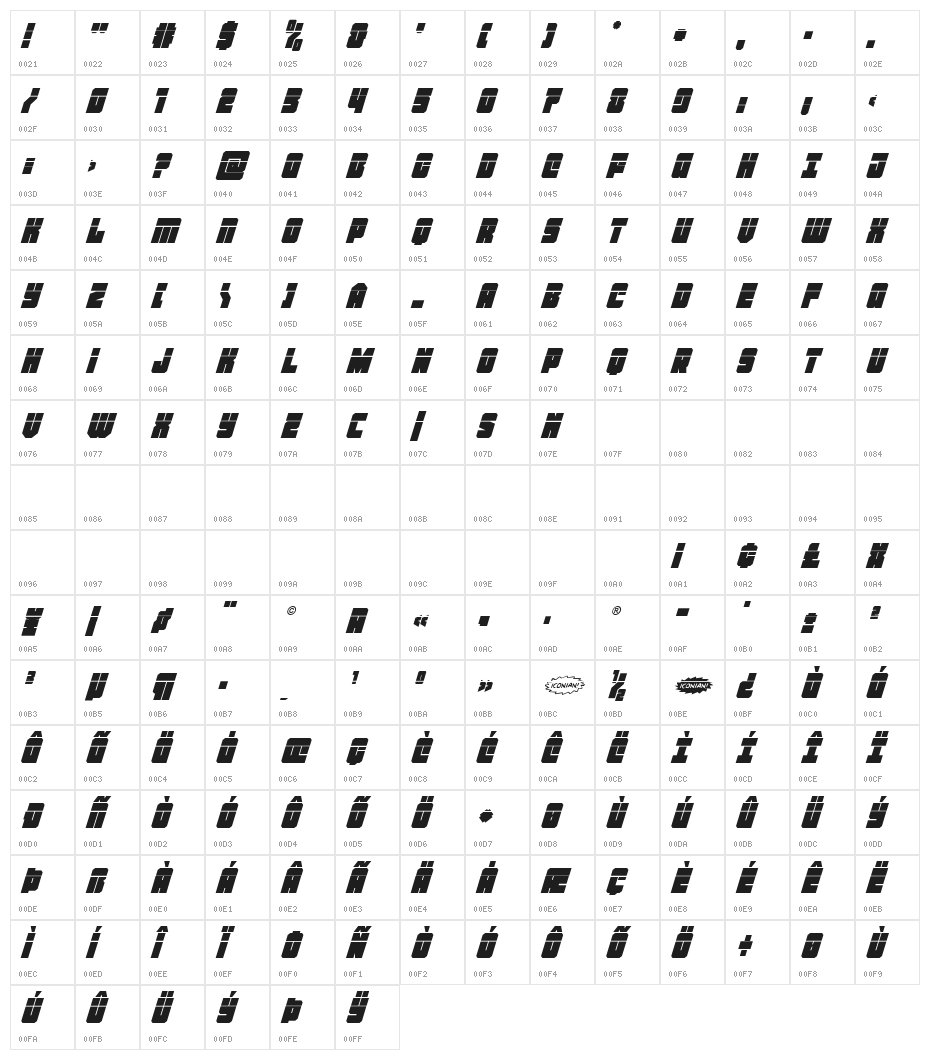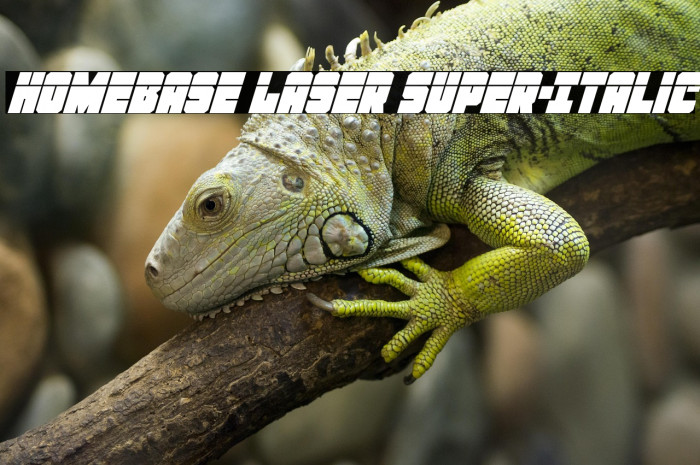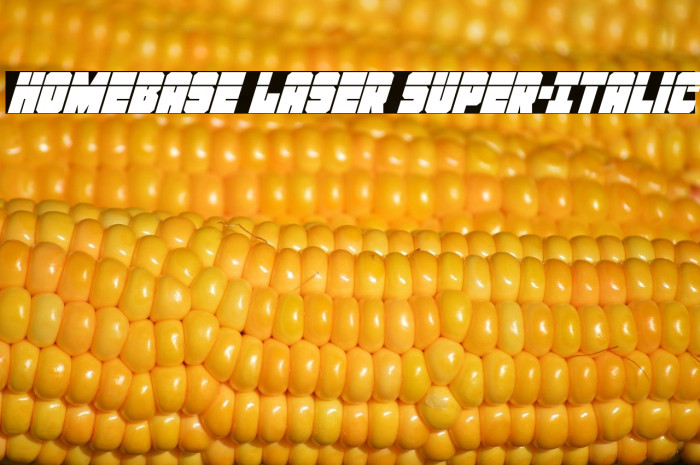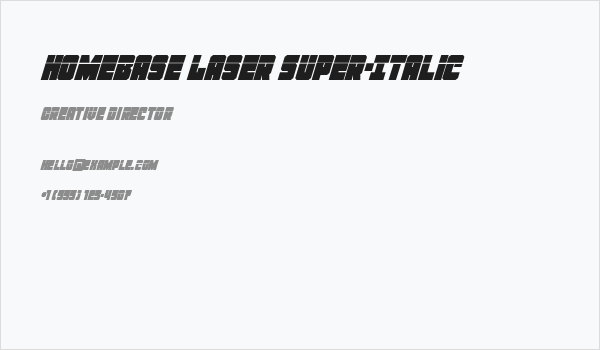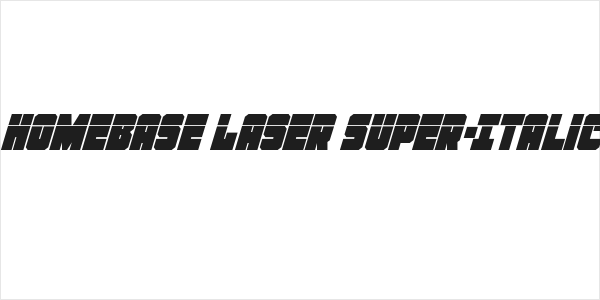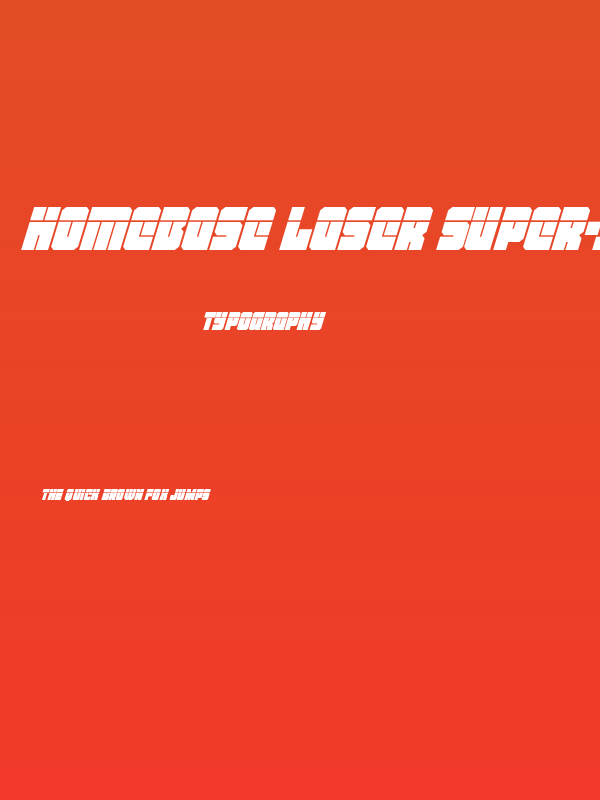
Homebase Laser Super-Italic Font
Homebase Laser Super-Italic Description
This font features a bold, italicized style with a futuristic and dynamic appearance. The characters are sharply angled, giving them a sense of motion and speed. The uppercase and lowercase letters maintain a consistent slant, enhancing the italic effect. The numbers and special characters follow the same design principles, ensuring uniformity across all elements. The font's thick strokes and geometric shapes contribute to its strong visual impact, making it ideal for attention-grabbing designs. Its unique style is reminiscent of sci-fi themes and high-tech aesthetics.
| Proposed Projects | Ideal for sci-fi themed posters, video game titles, tech branding, and futuristic logos. |